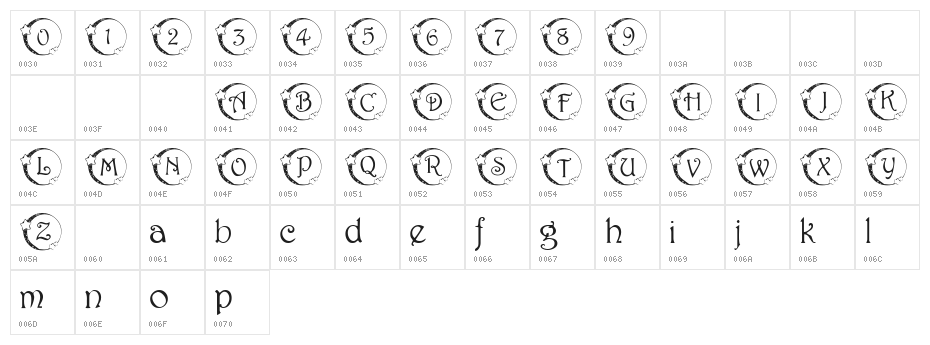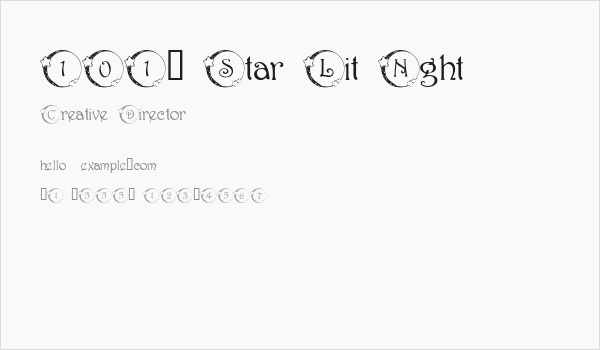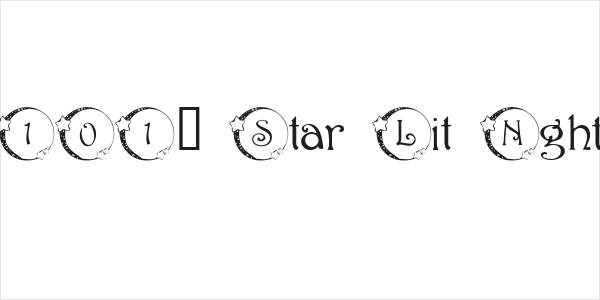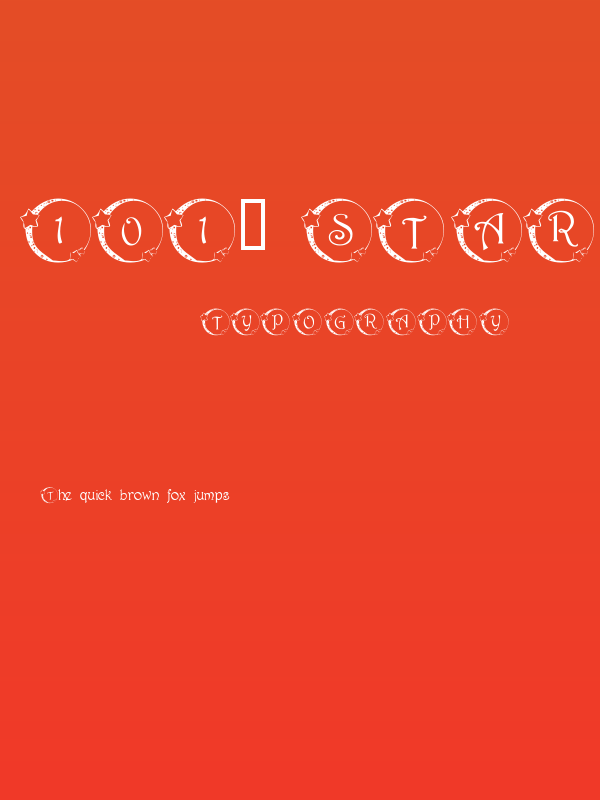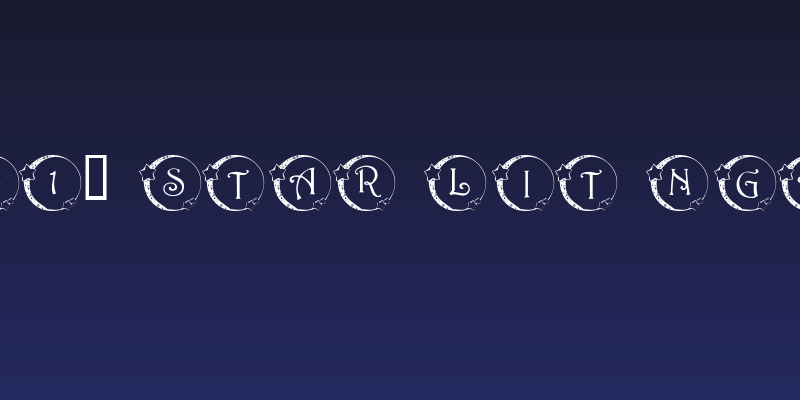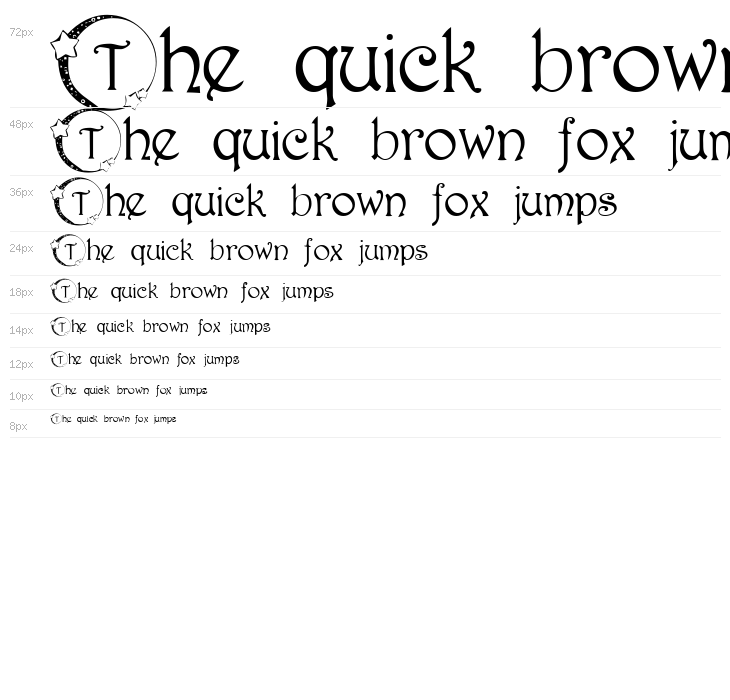
101! Star Lit Nght Font
101! Star Lit Nght Description
This font features a whimsical and decorative style, characterized by its unique blend of classic and playful elements. The uppercase letters are enclosed in circular, ornate frames, adding a touch of elegance and fantasy. The lowercase letters exhibit a flowing, slightly curved design that maintains readability while offering a distinct artistic flair. The numerals are similarly styled, with each digit encased in a decorative circle, enhancing the font's cohesive and thematic appearance. The special characters continue this theme, providing a consistent visual experience across all glyphs.
| Proposed Projects | Ideal for fantasy-themed projects, children's book covers, greeting cards, and artistic posters. |